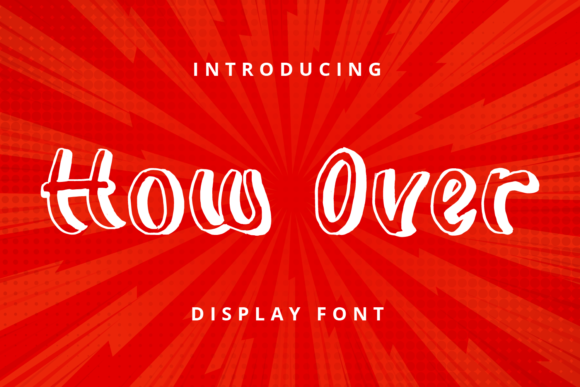
Journey into the world of rustic charm with How Over, a captivating display font crafted with meticulous attention to detail. Lose yourself in its harmonious blend of bold strokes and playful outlines, a perfect dance of classic and contemporary. Unleash your creativity and embark on an artistic escapade with How Over, the font that transforms ordinary designs into extraordinary masterpieces.
Immerse yourself in How Over's stylistic nuances, designed to evoke a sense of nostalgia and warmth. Its carefully crafted characters exude a timeless elegance, reminiscent of vintage farmhouses and cozy countryside retreats. Whether you're a seasoned designer or just starting your creative journey, How Over's user-friendly nature makes it an accessible choice for any project.
Discover the versatility of How Over, perfectly suited for a wide array of design endeavors. Create eye-catching web designs that captivate your audience, leaving a lasting impression. Design business cards that stand out from the crowd, showcasing your brand's unique personality. Unleash your imagination and explore endless possibilities with How Over, adding a touch of rustic charm to wedding invitations, greeting cards, posters, and more.
Indulge in the creative freedom that How Over offers, letting your ideas flow effortlessly onto the digital canvas. Its distinct style effortlessly elevates any project, adding a layer of visual interest and sophistication. Let your creativity soar with How Over, a font that ignites your passion for design and leaves a lasting impact on your audience.